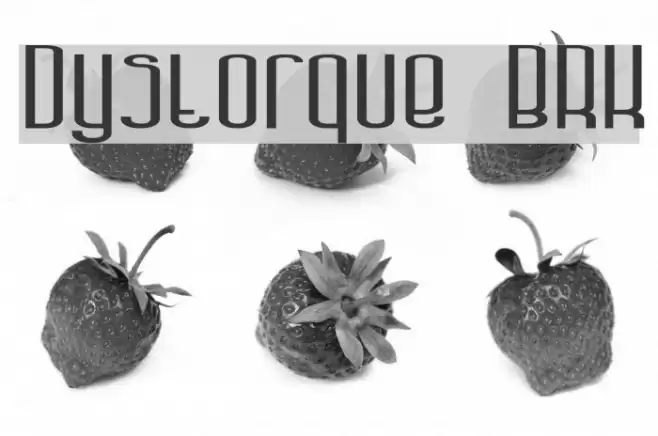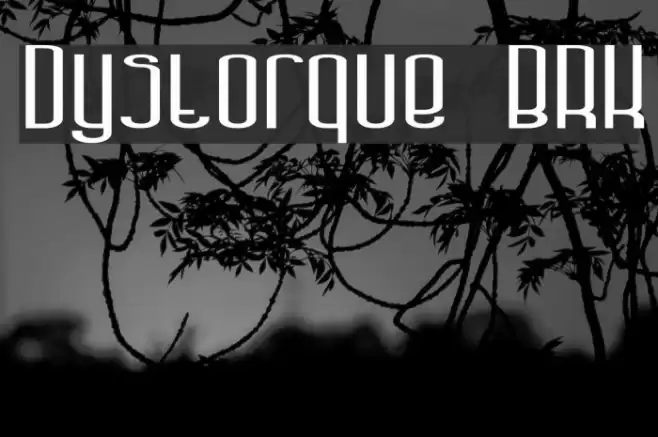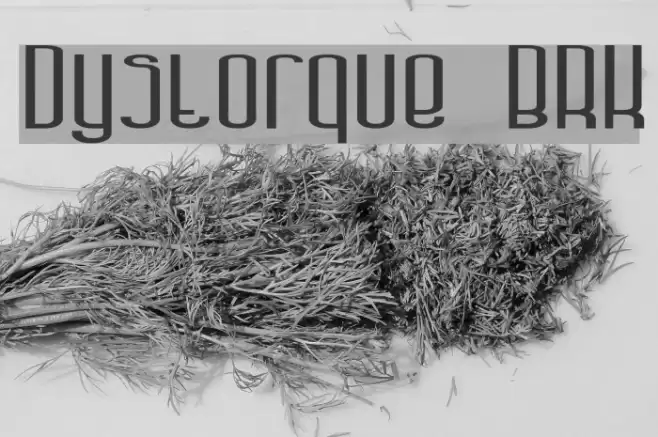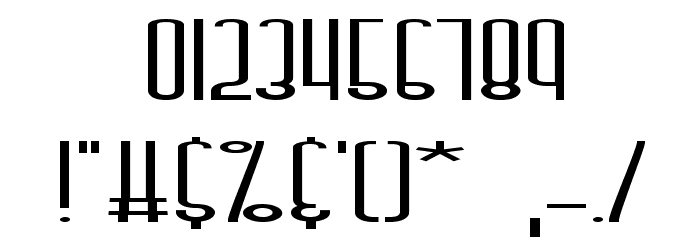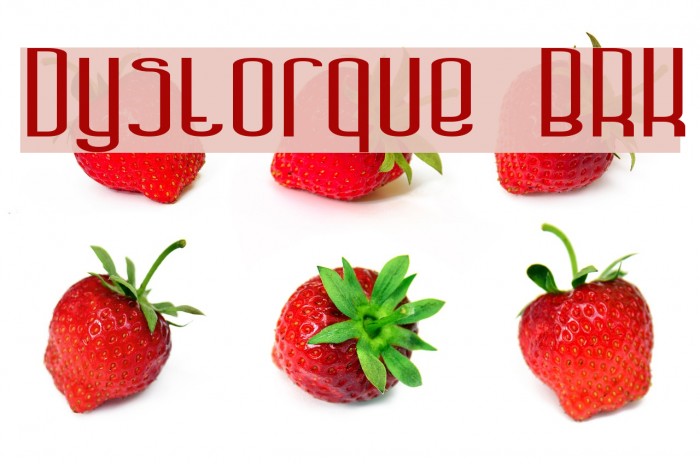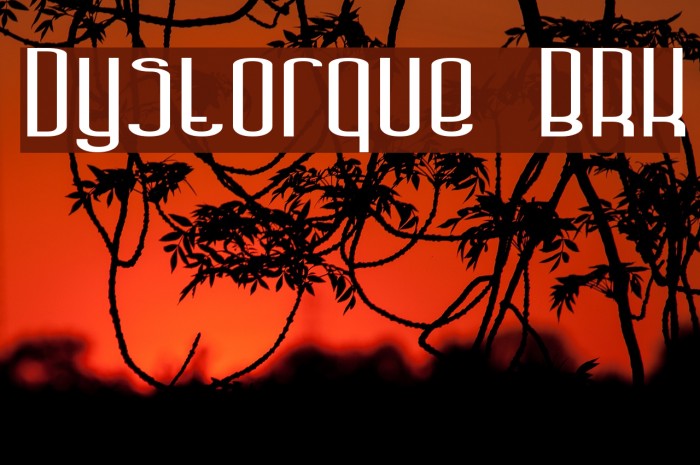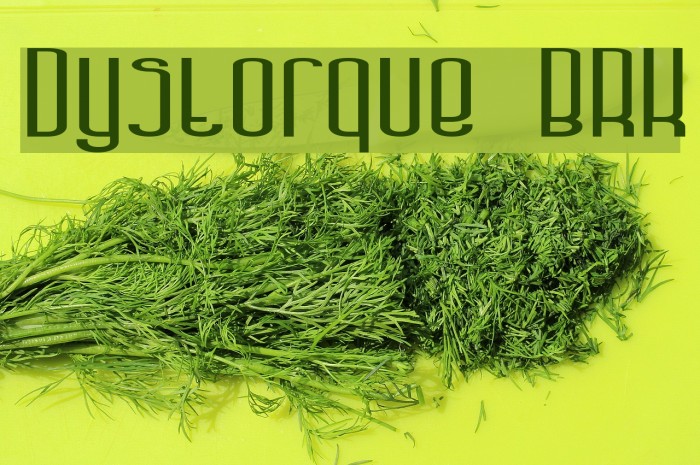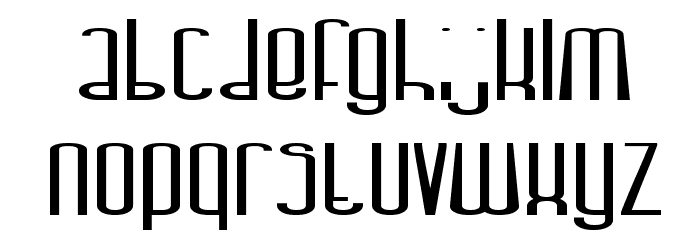
Dystorque BRK Font
This font exhibits a unique and modern design with elongated, narrow characters that give it a futuristic and sleek appearance. The uppercase letters are tall and slender, with a consistent vertical alignment that enhances its streamlined look. The lowercase letters maintain this narrow form, adding slight curves and distinctive shapes that contribute to its contemporary style. Numbers and special characters follow the same design principles, ensuring uniformity across all glyphs. The font's overall aesthetic is both stylish and functional, making it suitable for projects that require a modern and eye-catching typeface.
A modern, narrow font with a sleek, futuristic design from Quirky fonts.
- Proposed Projects: Ideal for technology branding, sci-fi themed projects, modern posters, and innovative product packaging.
- Overall Style: Futuristic